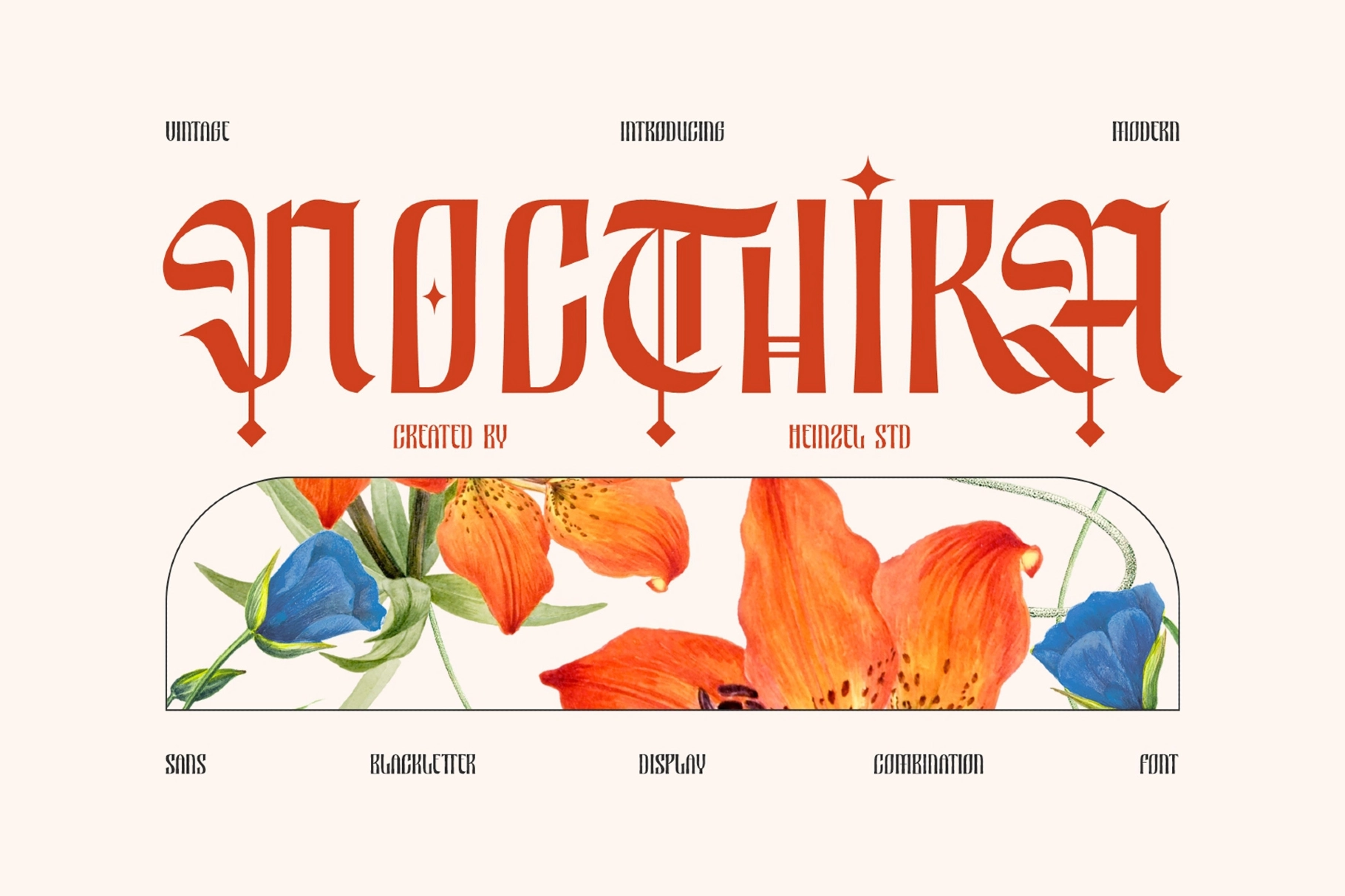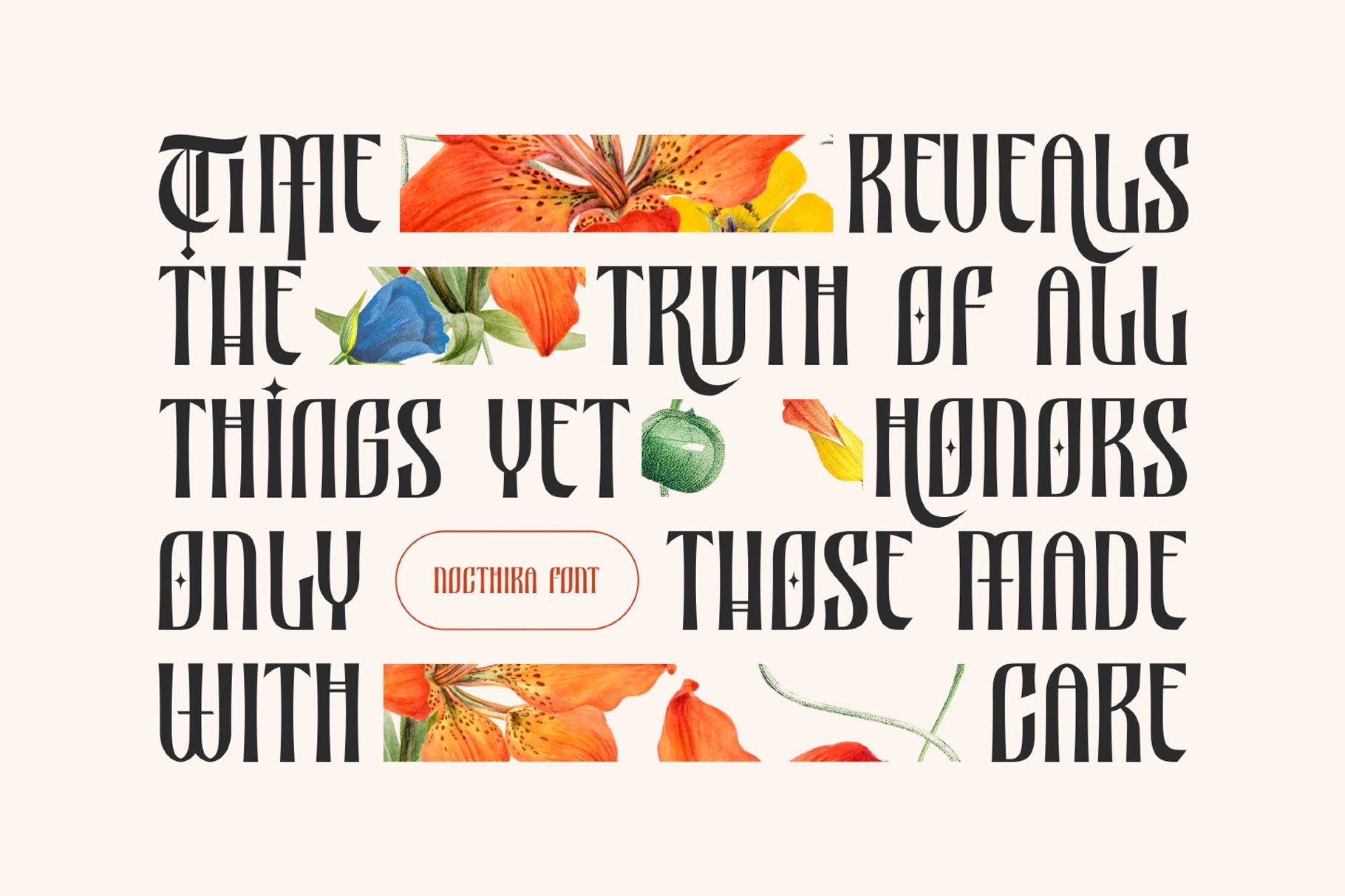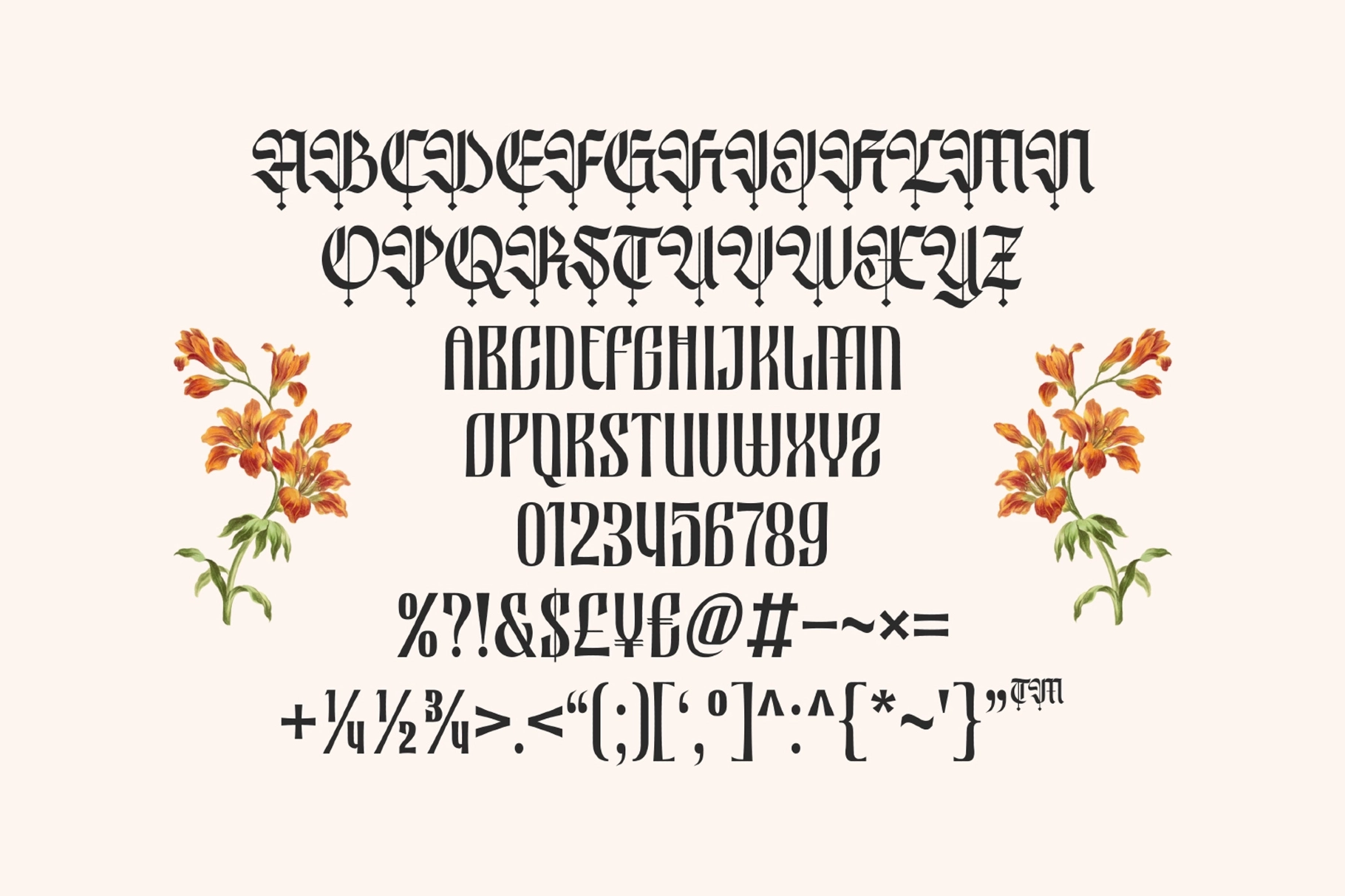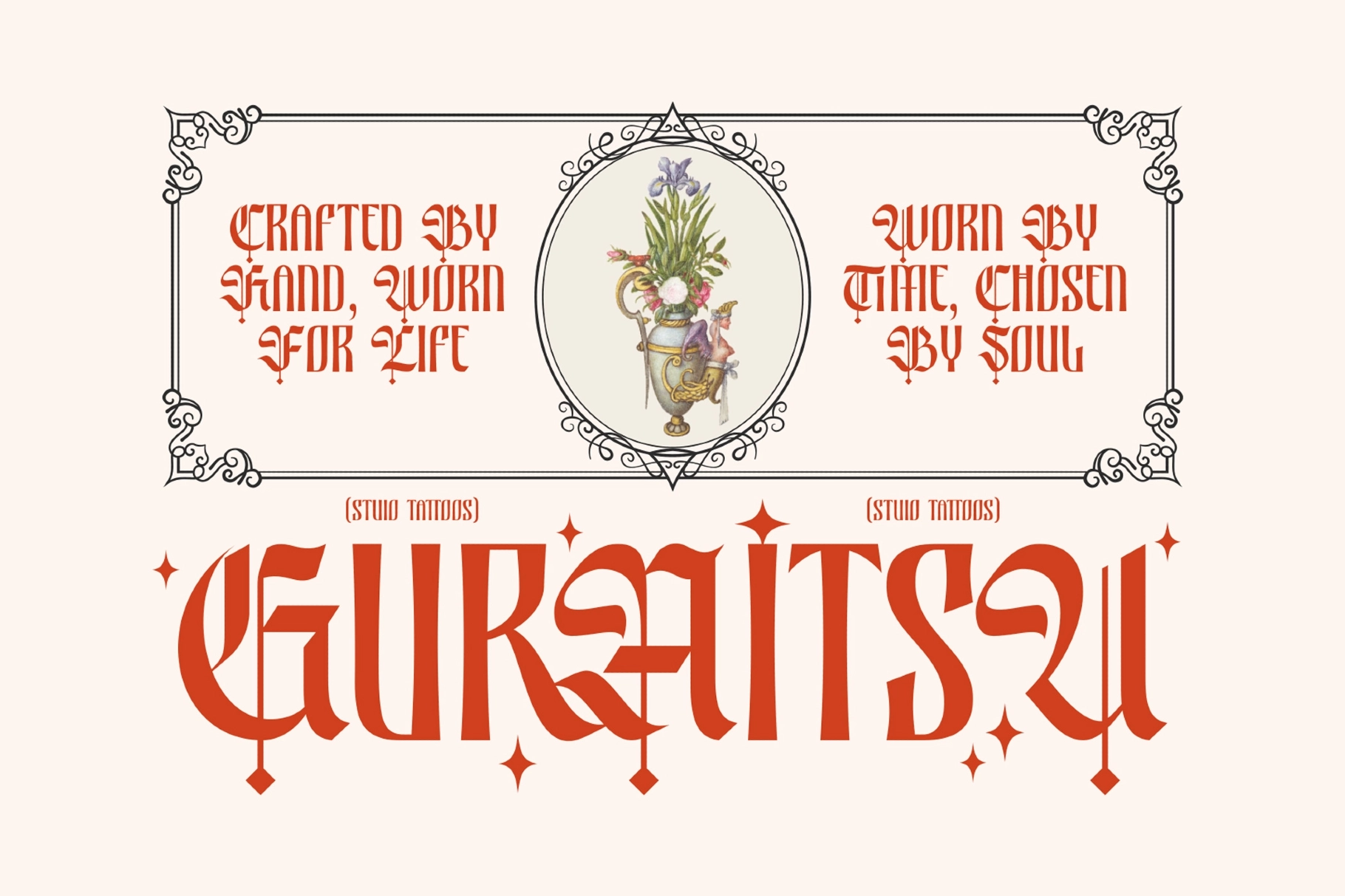
Nocthira - Blackletter Font
Nocthira builds each letter from sharp, angular breaks and tall vertical strokes, landing as a bold blackletter font with ornamental diamond finials dropping off select letters and a medieval structure pulled into a tighter, more contemporary rhythm. The counters stay narrow and the serifs cut at hard angles, keeping the gothic weight legible instead of cramped.
Stylistic alternates swap in on select letters for a more calligraphic flourish, useful for tattoo lettering or an ornate wordmark. Use it for branding, album covers, apparel graphics, and editorial headlines.